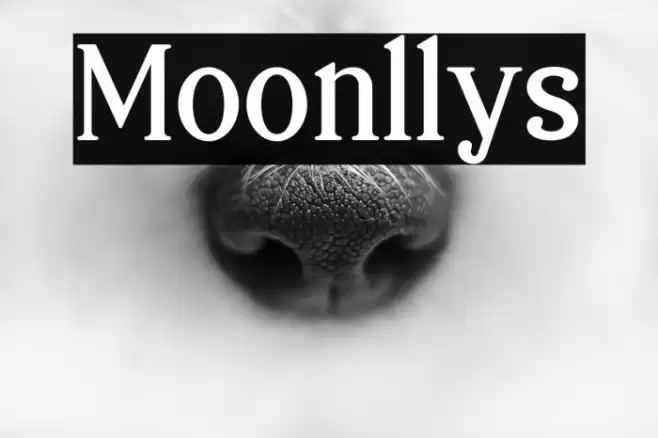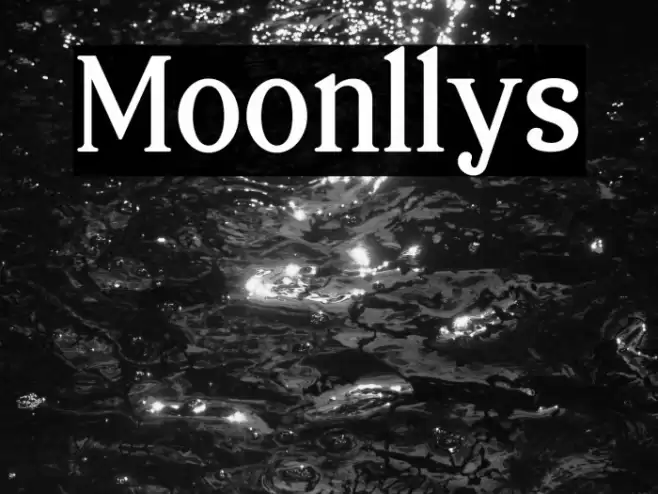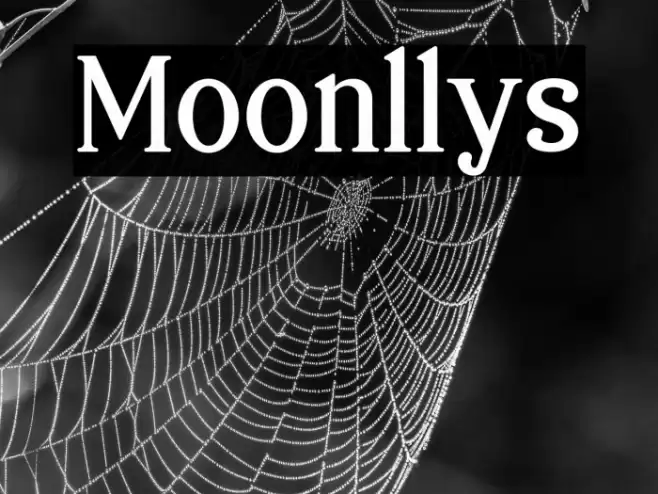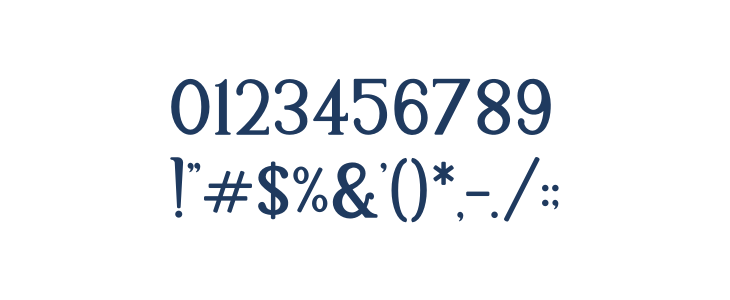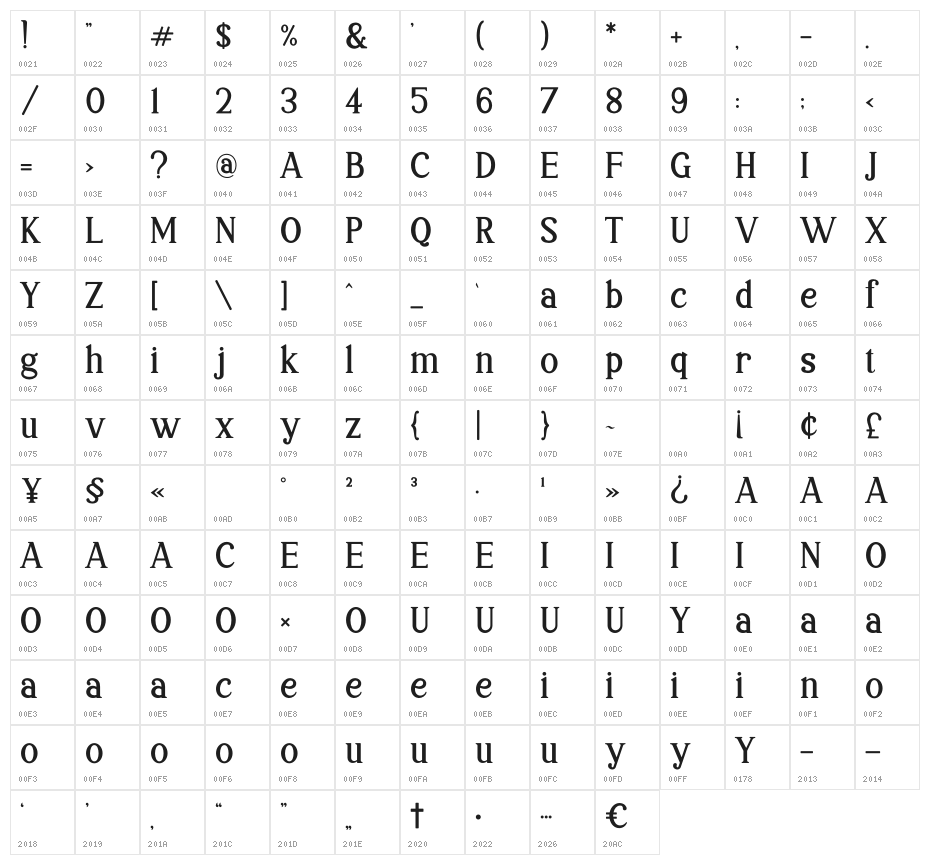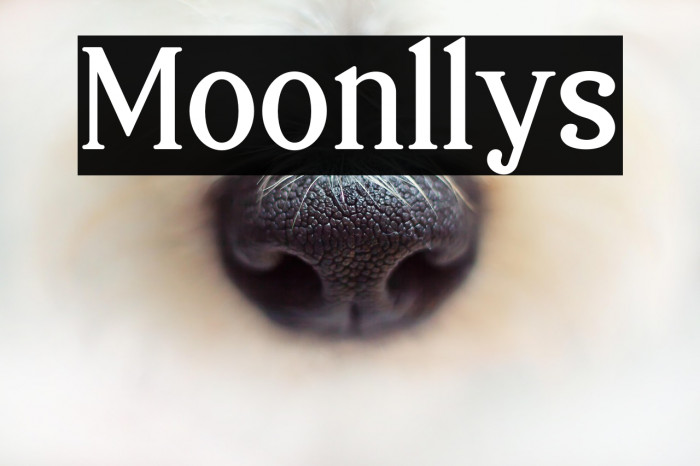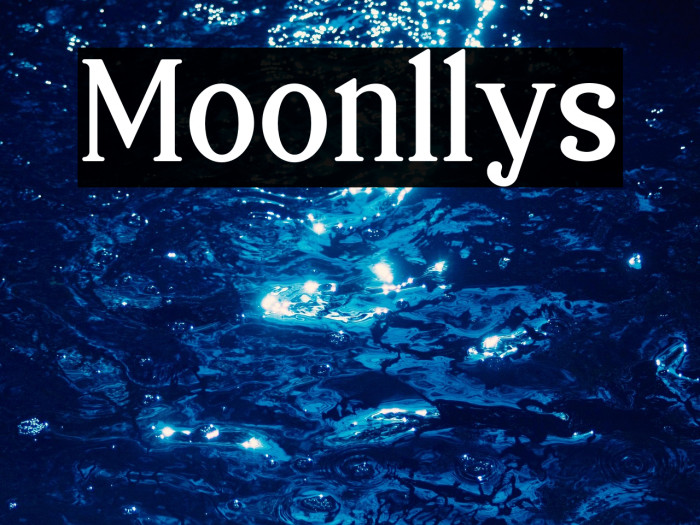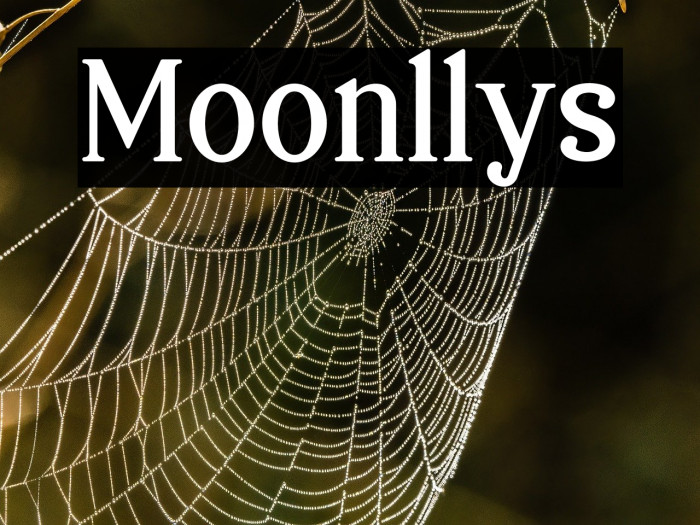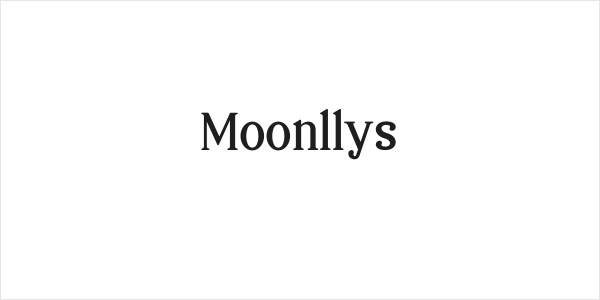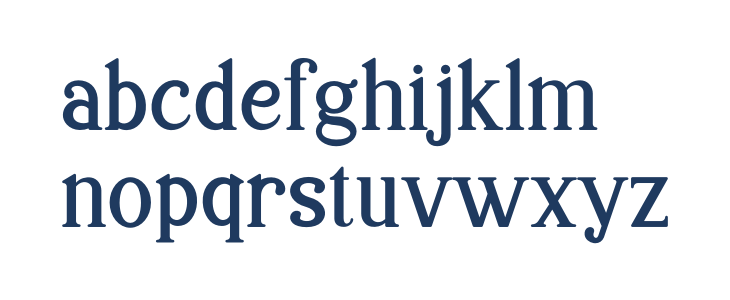
Moonllys Font
Moonllys Description
This font features a classic serif style with elegant and pronounced serifs that give it a timeless and sophisticated appearance. The uppercase letters are bold and commanding, while the lowercase letters maintain a consistent and harmonious flow. The numerals are clear and easily distinguishable, making them suitable for both formal and casual contexts. Special characters are well-integrated, maintaining the overall aesthetic of the font. The design balances traditional elements with a modern touch, making it versatile for various applications.
A classic serif font with elegant serifs and a timeless appearance from Regular fonts.
- Proposed Projects: Ideal for book covers, editorial design, formal invitations, and branding projects that require a touch of elegance.
- Overall Style: Classic